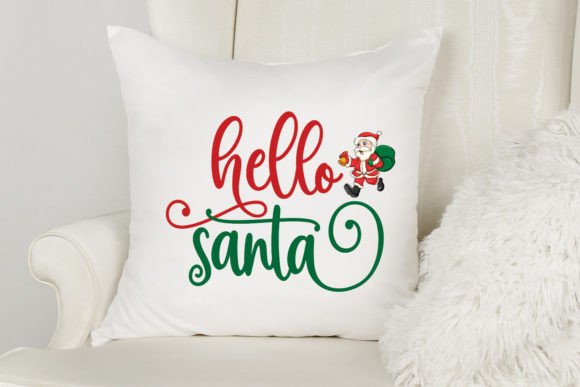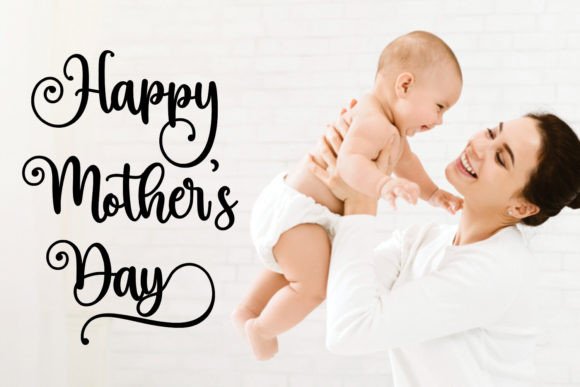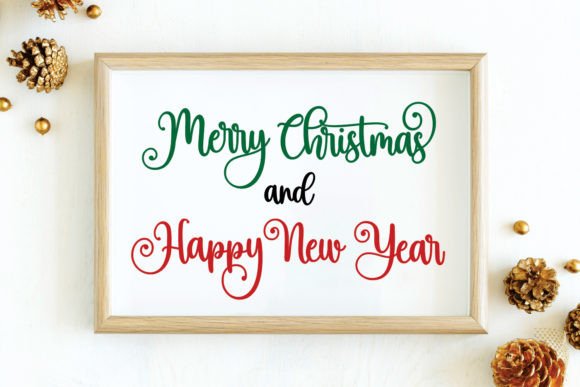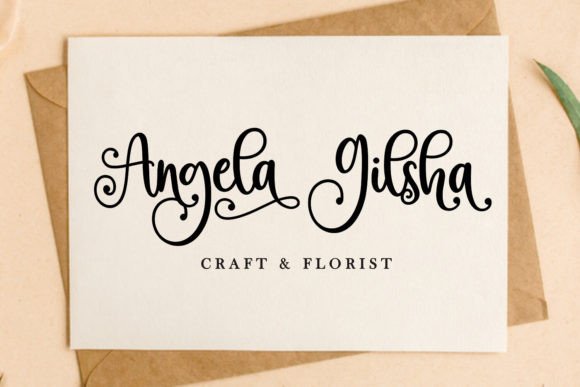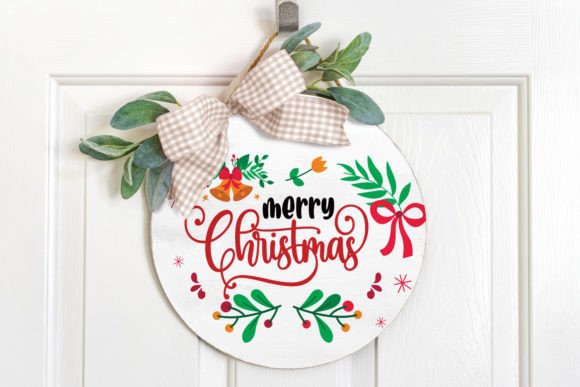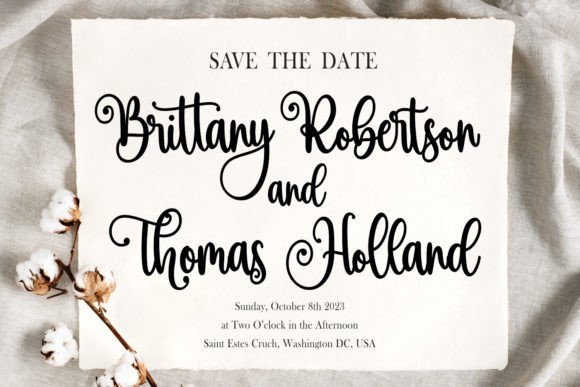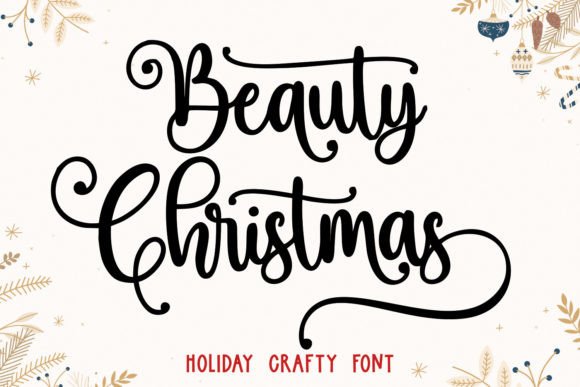
Introducing Beauty Christmas Font: Elevate Your Holiday Designs with Elegance
The holiday season is upon us, and with it comes the opportunity to create stunning designs that capture the magic and wonder of Christmas. Whether you’re a designer, crafter, or social media influencer, having the right font can make all the difference in turning your creative ideas into a true piece of art. This is where the Beauty Christmas Font comes in – a magical script font carefully crafted with a touch of elegance to make your holiday designs shine.
What is Beauty Christmas Font?
Beauty Christmas Font is a unique and sophisticated script font designed to add a touch of luxury and whimsy to your holiday-themed projects. With its flowing lines and intricate details, this font is perfect for creating eye-catching designs that exude the spirit of Christmas. Whether you’re looking for fonts for Instagram, calligraphy scripts for DIY projects, or elegant text for holiday cards and invitations, Beauty Christmas Font is the perfect choice.
Key Features of Beauty Christmas Font
- Magical Script Font: Beauty Christmas Font boasts a whimsical and enchanting design that’s sure to captivate your audience.
- Elegant and Sophisticated: With its intricate details and flowing lines, this font exudes luxury and refinement, making it perfect for high-end designs.
- Versatile: Use Beauty Christmas Font for a wide range of projects, from social media graphics and holiday cards to DIY crafts and calligraphy projects.
Uses for Beauty Christmas Font
The possibilities are endless when it comes to using Beauty Christmas Font. Here are a few ideas to get you started:
- Instagram Graphics: Create stunning holiday-themed graphics for your Instagram feed using Beauty Christmas Font.
- Holiday Cards and Invitations: Add a touch of elegance to your holiday cards and invitations with this beautiful script font.
- DIY Crafts: Use Beauty Christmas Font to create custom calligraphy for your DIY holiday crafts, such as ornaments, gift tags, and decorations.
- Social Media Campaigns: Elevate your holiday social media campaigns with eye-catching graphics and elegant text.
Tips for Using Beauty Christmas Font
To get the most out of Beauty Christmas Font, here are a few tips to keep in mind:
- Pair with Simple Backgrounds: Let the font be the star of the show by pairing it with simple backgrounds that won’t compete for attention.
- Experiment with Colors: Try pairing Beauty Christmas Font with different colors to create unique and eye-catching designs.
- Use for Headlines and Titles: This font is perfect for headlines and titles, so don’t be afraid to use it to add a touch of elegance to your designs.
Beauty Christmas Font is a magical script font that’s sure to elevate your holiday designs with its touch of elegance. Whether you’re a designer, crafter, or social media influencer, this font is perfect for creating stunning holiday-themed projects that capture the spirit of Christmas. With its versatility, ease of use, and sophisticated design, Beauty Christmas Font is a must-have for anyone looking to add a little magic to their holiday designs.